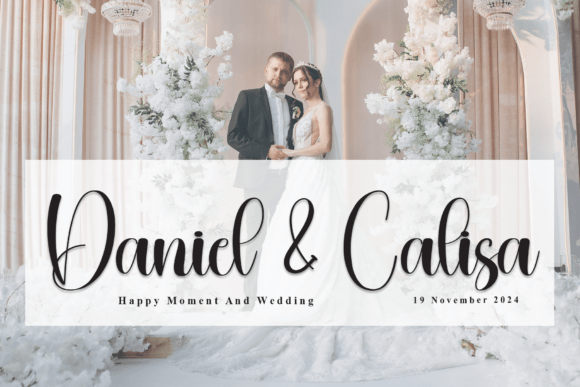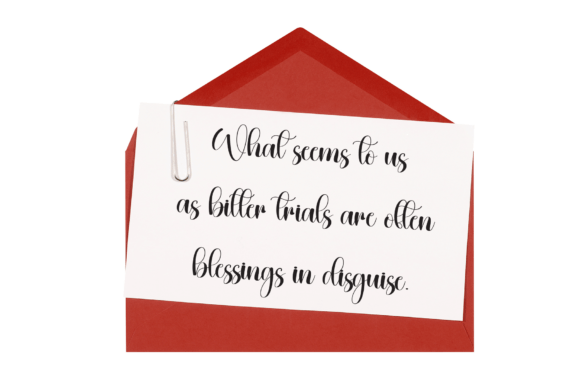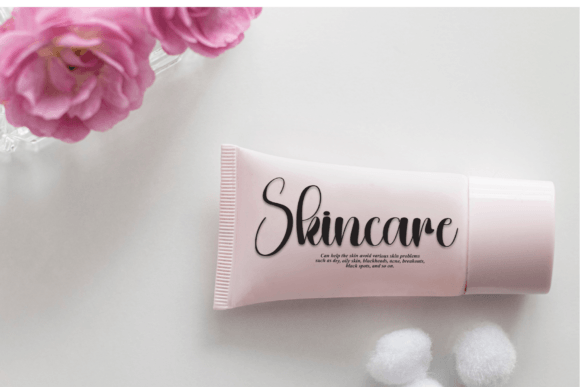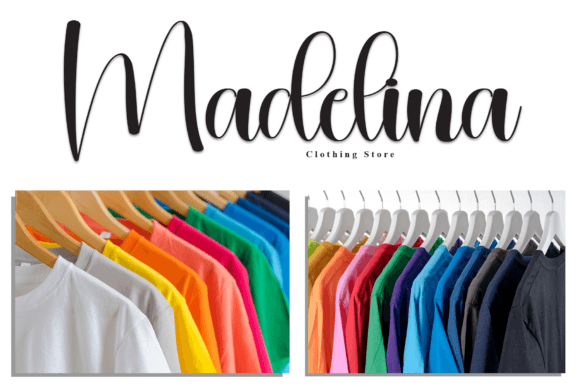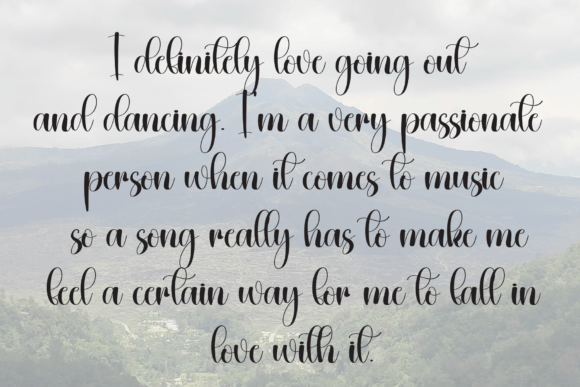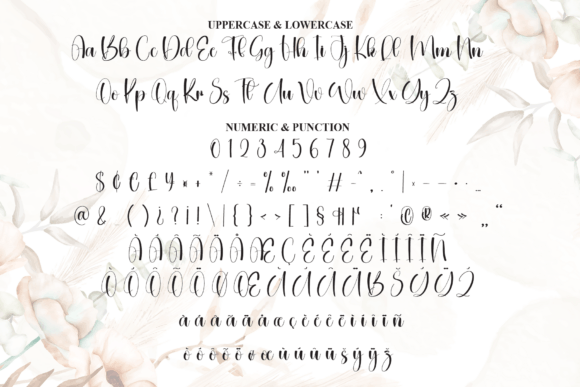
The Beauty of Handwritten Fonts: Elevate Your Designs with Elegance and Charm
In the world of typography, handwritten fonts have always held a special place in the hearts of designers and crafters. They bring a level of elegance, creativity, and personal touch to any project that’s hard to replicate with standard fonts. One such font that has gained significant attention in recent times is the Handwritten font. This beautifully crafted script font exudes sophistication and warmth, making it perfect for a wide range of applications, from wedding invitations and branding to social media and greeting cards.
The Characteristics of Handwritten Font
So, what makes the Handwritten font so special? For starters, its smooth curves and flowing lines give it a natural, effortless feel that’s reminiscent of handwriting. The font features elegant swashes that add a touch of drama and flair, making it perfect for headlines, titles, and other design elements where you want to make a statement. At the same time, the font’s overall design is highly legible, ensuring that your message gets across clearly and effectively.
Perfect for Wedding Invitations and Branding
Wedding invitations and branding are two areas where the Handwritten font truly shines. Its elegant and sophisticated design makes it perfect for formal wedding invitations, while its warm and personal feel ensures that your brand stands out in a crowded marketplace. Whether you’re looking to create a luxurious and high-end brand image or a more playful and creative one, the Handwritten font offers the perfect solution.
Adding a Personal Touch to Social Media and Greeting Cards
In today’s digital age, social media and greeting cards are two areas where handwritten fonts can add a much-needed personal touch. The Handwritten font is perfect for creating engaging social media posts, stories, and graphics that stand out from the crowd. Similarly, it can be used to create beautiful and heartfelt greeting cards for special occasions like birthdays, anniversaries, and holidays.
Why Choose Handwritten Font?
So, why should you choose the Handwritten font for your next project? Here are just a few reasons:
- Elegance and sophistication: The Handwritten font exudes elegance and sophistication, making it perfect for formal and informal projects alike.
- Creativity and versatility: The font’s smooth curves and flowing lines make it highly versatile, allowing you to use it in a wide range of applications.
- Personal touch: The Handwritten font adds a personal touch to your projects, making them feel warm, artistic, and timeless.
- High legibility: The font’s clear and legible design ensures that your message gets across effectively.
Tips for Using Handwritten Font
Here are a few tips for using the Handwritten font effectively in your designs:
- Use it sparingly: While the Handwritten font is beautiful, it can be overwhelming if used excessively. Use it sparingly to add emphasis and create visual interest.
- Pair it with other fonts: The Handwritten font pairs well with other fonts, especially sans-serif fonts. Experiment with different combinations to find the one that works best for your project.
- Pay attention to spacing: Make sure to adjust the spacing between letters and words to create a natural and effortless feel.
In conclusion, the Handwritten font is a beautifully crafted script font that offers elegance, creativity, and a personal touch to any project. Its smooth curves, flowing lines, and elegant swashes make it perfect for wedding invitations, branding, social media, greeting cards, and heartfelt designs. With its high legibility and versatility, the Handwritten font is an excellent choice for designers and crafters looking to add a touch of sophistication and warmth to their projects.